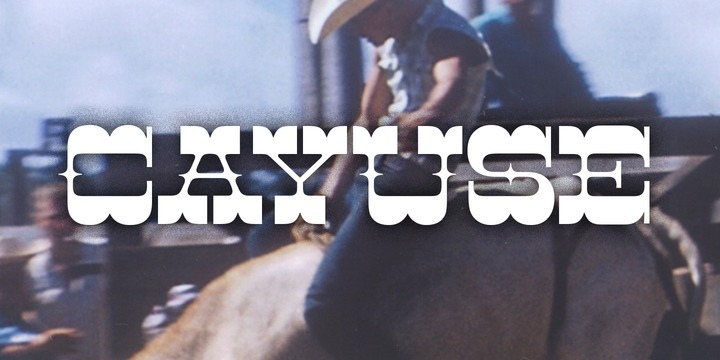
Cayuse Font
Cayuse Font is perfect for Western-themed branding, vintage posters, rustic packaging, bar and grill menus, and rodeo event advertisements. Its bold and decorative style instantly evokes the rugged charm of the American frontier.
What makes Cayuse Font exciting is its authentic old-west design elements combined with modern clarity. The distinctive letterforms create a nostalgic yet fresh look, making it ideal for projects that aim to capture heritage and tradition while staying visually sharp.
The Cayuse Font family includes Regular, Bold, Italic, and Shadow variations, offering designers a full range of creative possibilities. These styles work beautifully together, allowing you to craft layered typography with depth and personality.